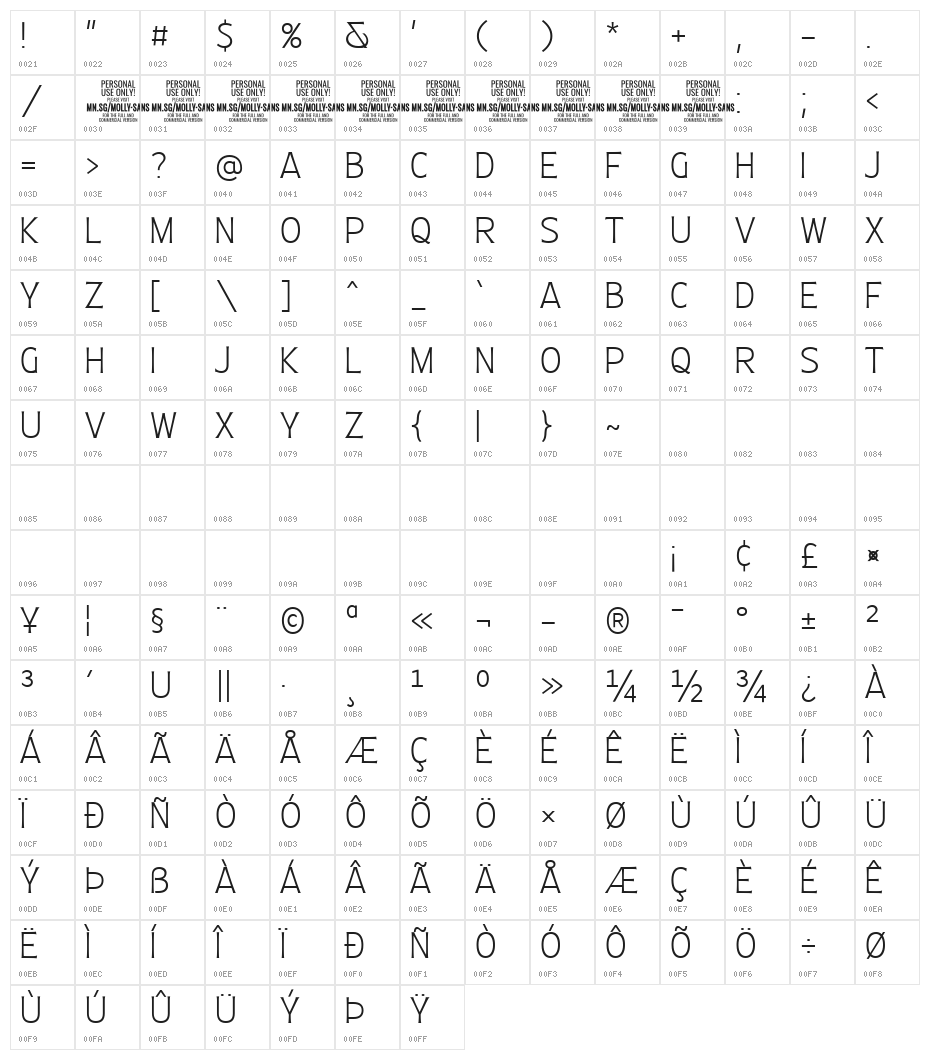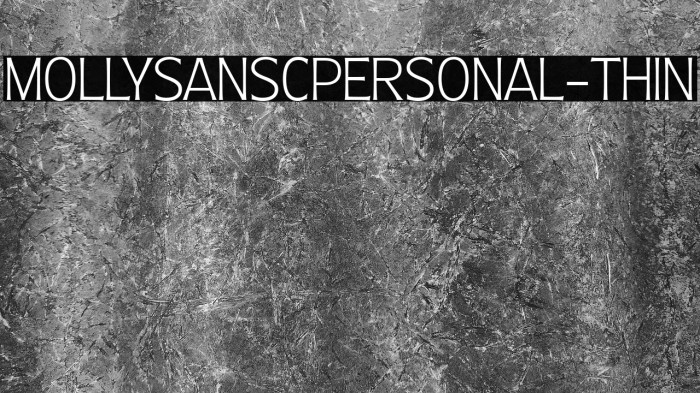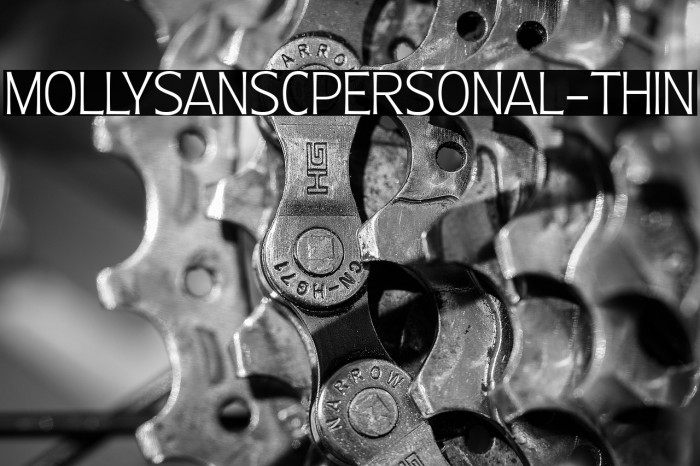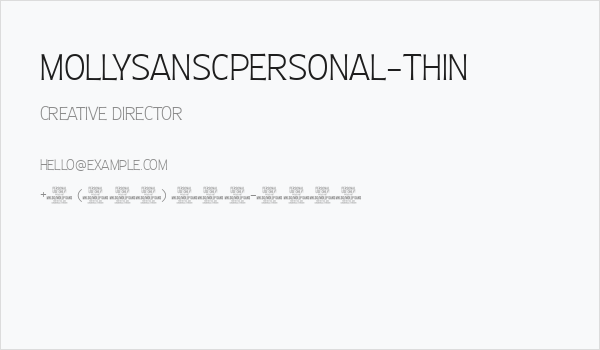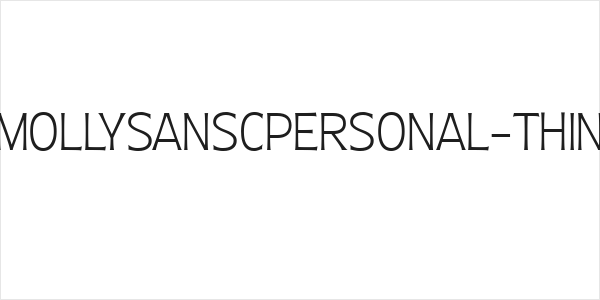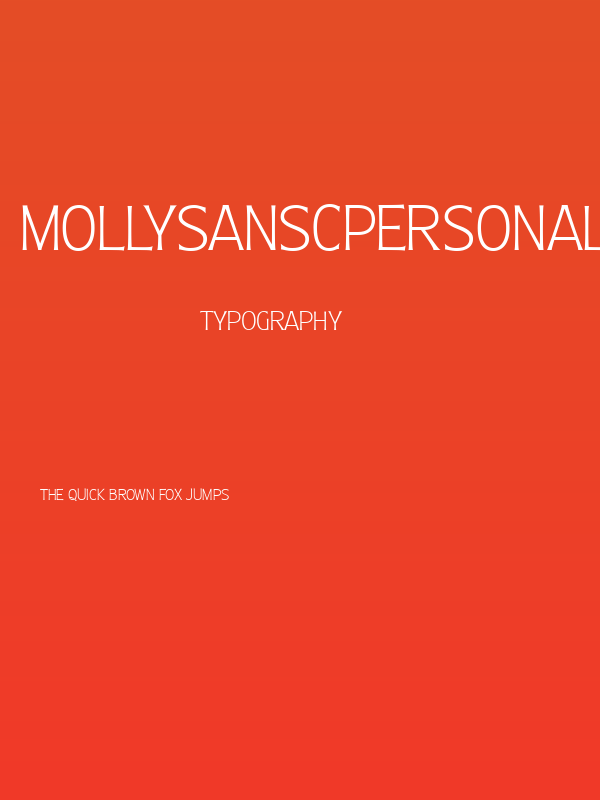
MollySansCPERSONAL-Thin Font
MollySansCPERSONAL-Thin Description
This font features a clean and modern sans-serif style with thin, uniform strokes that convey a sense of elegance and simplicity. The characters are well-proportioned, with a consistent height and width that ensures readability. The uppercase and lowercase letters maintain a cohesive look, while the numerals and special characters complement the overall design. The font's minimalistic approach makes it versatile for various applications, offering a contemporary aesthetic that is both professional and approachable.